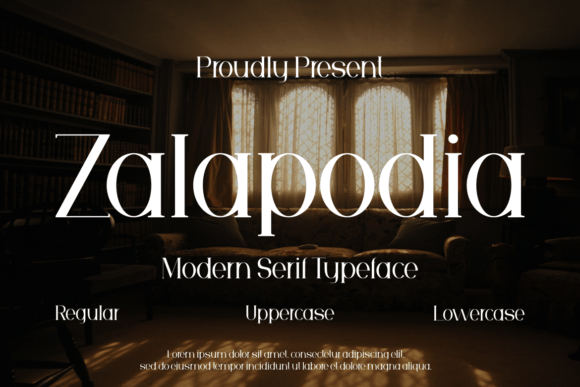
Zalapodia: A Thoughtful Serif for Editorial Calm
It started with a quiet afternoon and a half-finished recipe ebook—pages of slow-simmered stories, seasonal ingredient notes, and gentle kitchen wisdom. I’d just finished the final draft when it hit me: the cover felt visually unmoored. Not wrong, exactly—but lacking that subtle resonance between voice and type. The existing font was serviceable, but it didn’t breathe with the content. So I reached for Zalapodia.
Zalapodia is a modern serif with presence—not loud, not austere, but quietly assured. Its letterforms carry just enough contrast and refined stroke modulation to feel intentional, yet its rhythm remains open and unhurried. There’s warmth in its curves, clarity in its terminals, and a soft confidence in its vertical stress. It doesn’t shout “look at me”—it invites you to settle in, read closely, and trust the tone.
I used Zalapodia for the ebook title on the cover, then extended it to chapter openers and pull quotes inside. In print PDFs, it held its grace at 24pt with generous leading; on screen, it remained legible and elegant even at smaller sizes—especially when exported as embedded vector text. Its optical balance meant headings didn’t overwhelm body copy, and its subtle serifs guided the eye without drawing attention to themselves. That’s rare in display serifs: elegance without effort.
For my lifestyle blog redesign, I applied Zalapodia to the header and article titles—not as a logo, but as a consistent typographic signature. It paired effortlessly with a warm, neutral sans serif (a slightly softened geometric) for navigation, captions, and body text. The contrast worked because Zalapodia carried weight and character, while the sans offered breath and neutrality. No competing personalities—just complementary roles in a shared visual language.
What makes Zalapodia especially useful across editorial formats is its versatility within hierarchy. It shines at larger sizes: newsletter headers, printable planner covers, wedding guide section dividers, coaching workbook chapter titles. But it also holds up thoughtfully in mid-size applications—like pull quotes in digital magazines or subtitle treatments beneath feature images. It’s not designed for long-form body text, and it shouldn’t be. That’s not its purpose. It’s a premium serif built for moments of emphasis, pause, and intention—where typography supports meaning rather than competes with it.
In a digital magazine layout I recently tested, Zalapodia anchored each feature opener: bold enough to signal importance, refined enough to avoid cliché. Its medium weight provided presence without heaviness; its italic offered graceful emphasis—not dramatic flourish, but quiet distinction. When paired with a highly readable serif for body copy (think a classic Garamond or contemporary Charter variant), the result felt grounded, literate, and human-scaled.
Readability across devices mattered deeply. On mobile, Zalapodia’s open counters and generous x-height kept titles clear—even in thumbnail previews. In PDF exports for course materials or printable guides, it rendered crisply without hinting artifacts. For printables like weekly planners or reflection worksheets, its clean outlines printed beautifully at high resolution, and its slight calligraphic lift in the ‘e’ and ‘a’ added just enough personality without sacrificing professionalism.
Practically speaking, Zalapodia comes with a full range of weights—light, regular, medium, semibold, bold—and matching italics. I found the medium weight ideal for most display uses: present but never aggressive. The bold reserved itself for true focal points—cover titles, workshop names, limited-edition series headers. Ligatures are tastefully included (‘fi’, ‘fl’, ‘ff’, ‘ffi’) and activate smoothly in design apps and modern browsers. OpenType features like small caps and stylistic alternates add polish when needed, though they’re never required to make the font sing.
I’ve also used Zalapodia in a wedding guide—soft but structured, romantic but not saccharine. Its serifs echo tradition without leaning into vintage cliché; its proportions feel contemporary and inclusive. For a creator newsletter header, it added distinction without formality—friendly authority, not corporate distance. And in a coaching workbook, it gave structure to reflective prompts and section breaks, turning functional layouts into gentle invitations to engage.
Typography, at its best, isn’t about decoration—it’s about stewardship. Stewardship of attention, of mood, of time. Zalapodia supports that stewardship. It doesn’t distract. It doesn’t exhaust. It offers a steady hand, a calm voice, a consistent presence across touchpoints—whether readers encounter it first on a social media graphic, then in an email subject line, then on a printed worksheet they hold in their hands.
If you’re building something thoughtful—a recipe collection, a quiet newsletter, a reflective workbook, a digital magazine with soul—you’ll find Zalapodia doesn’t ask to be noticed. It simply asks to be trusted. And once you do, it repays that trust with quiet consistency, editorial warmth, and a kind of typographic generosity that’s increasingly rare.